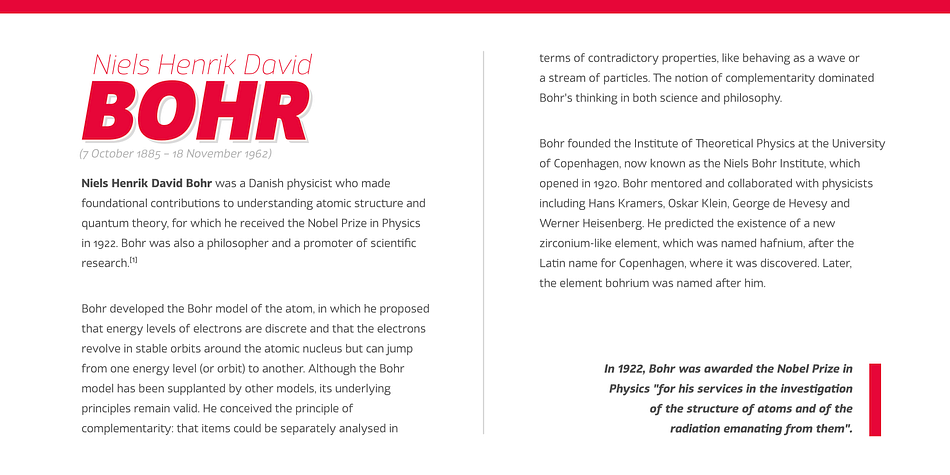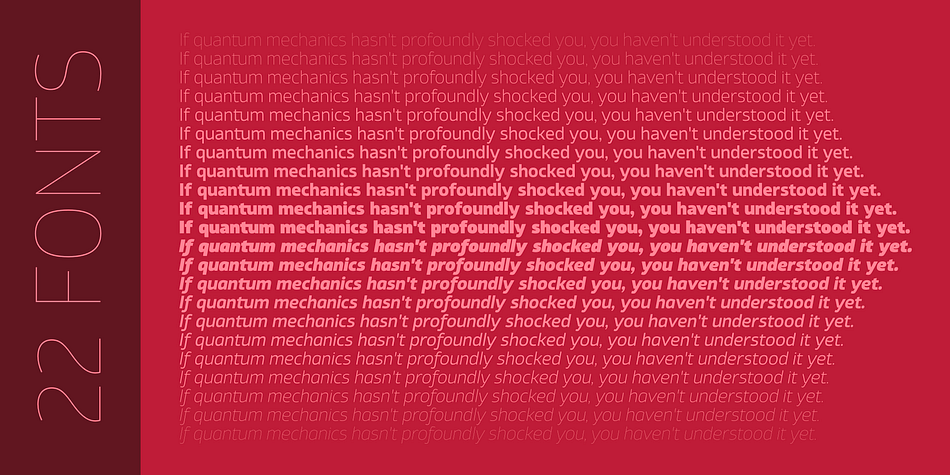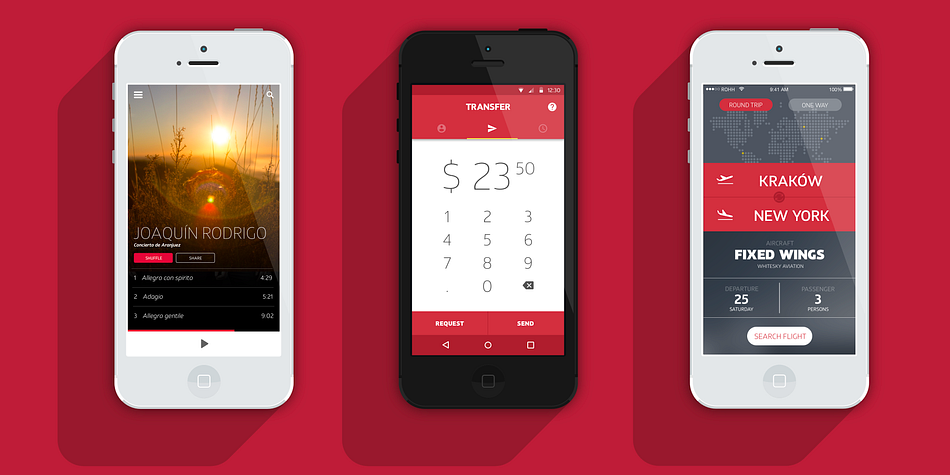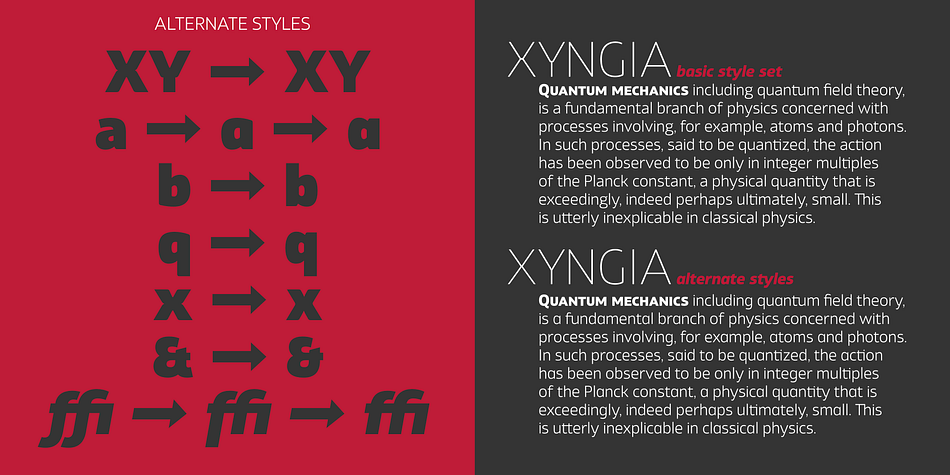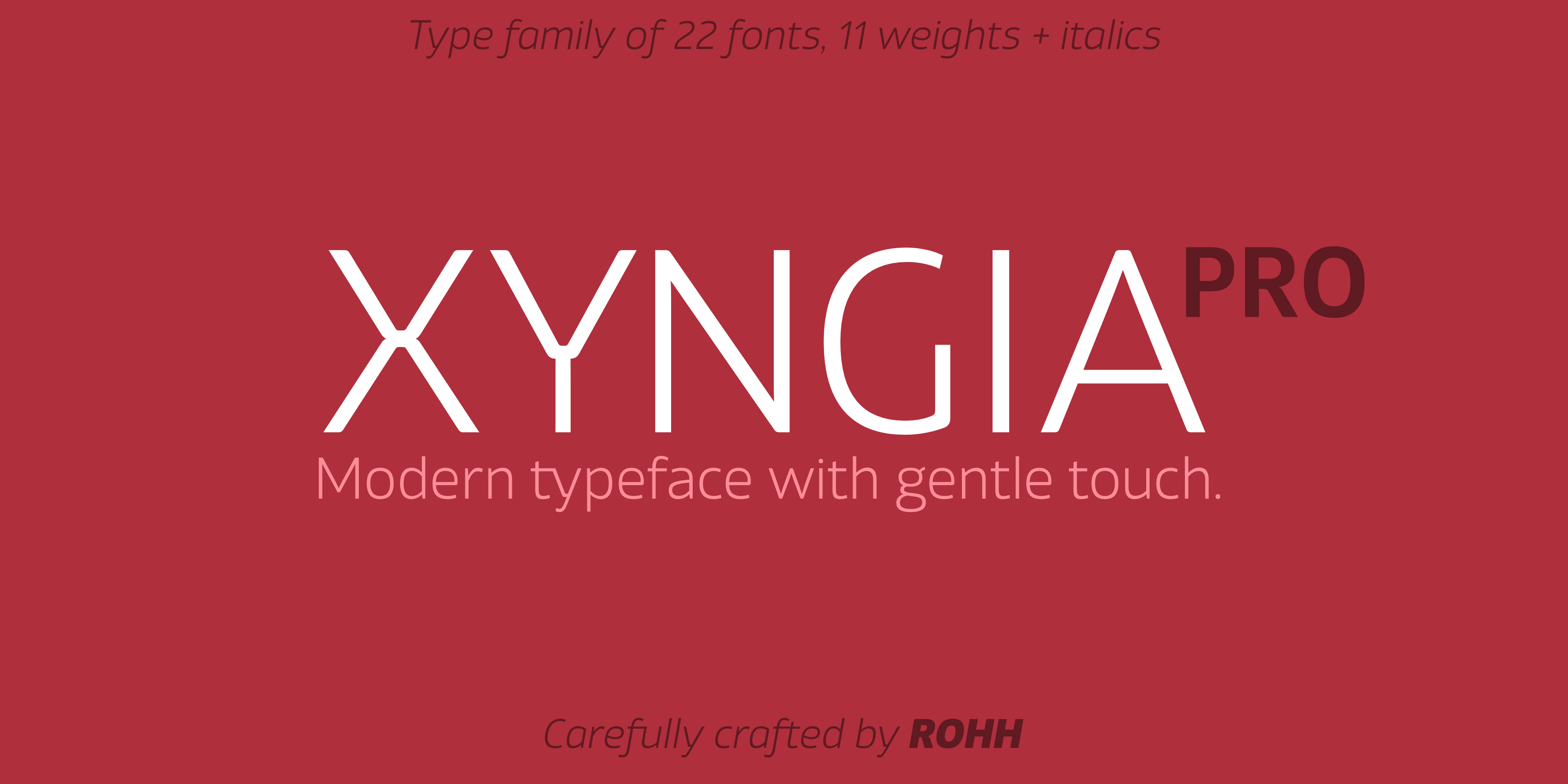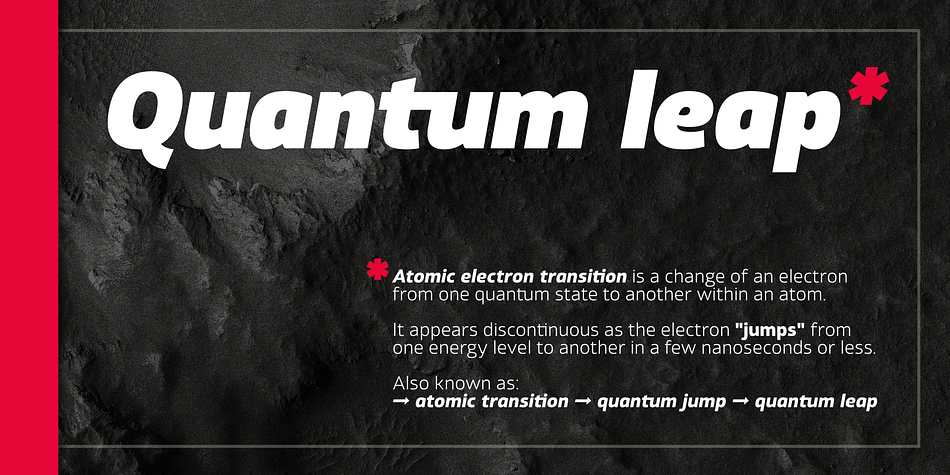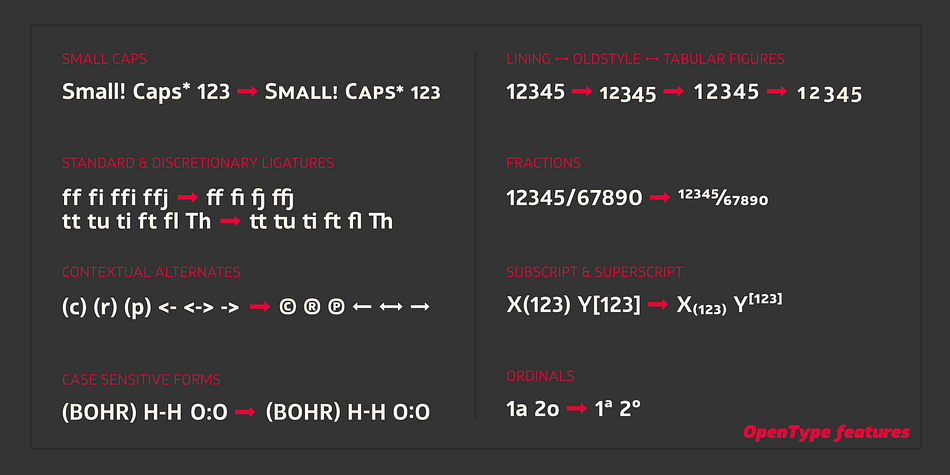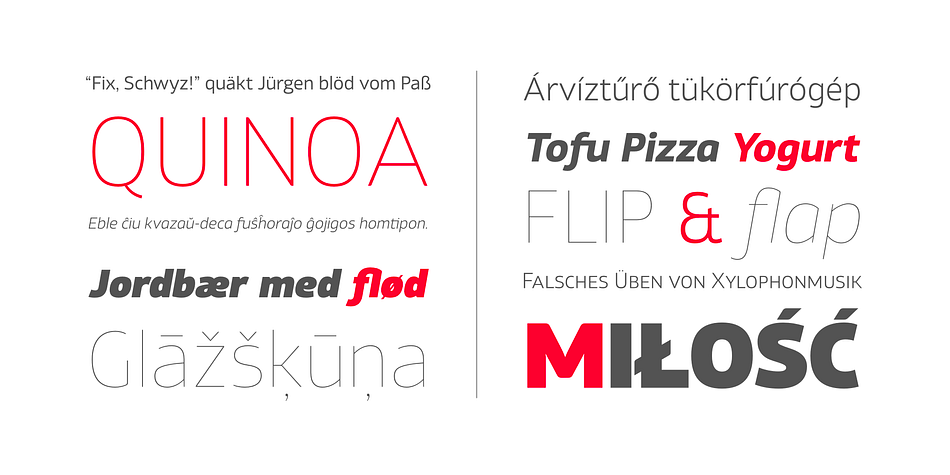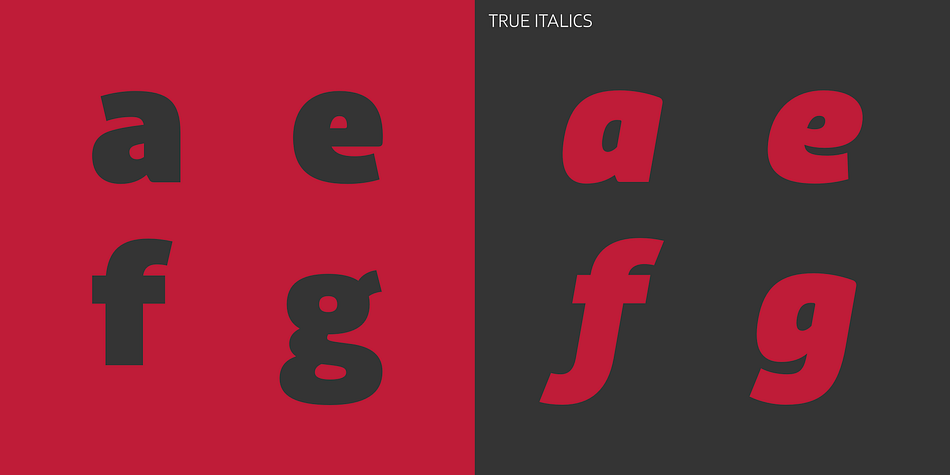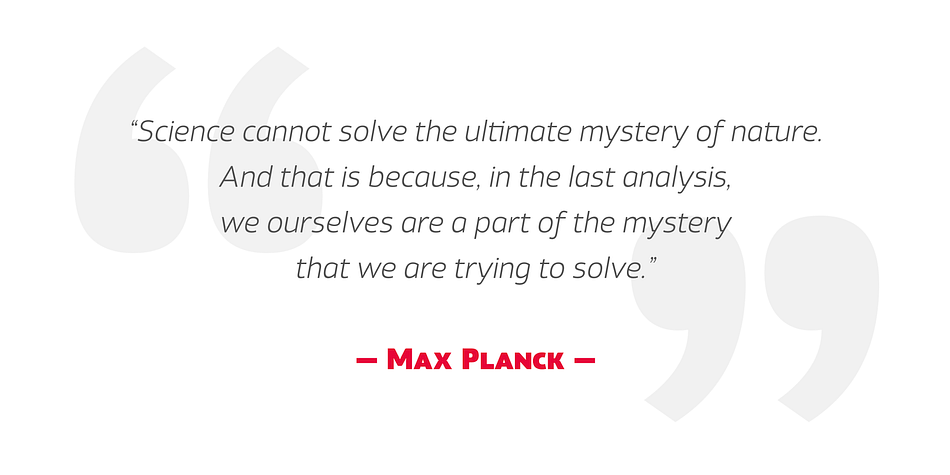
Designed by Roch Modrzejewski, Xyngia is a sans serif font family. This typeface has twenty-two styles and was published by ROHH.
Xyngia is a professional modern sans serif typeface. Thanks to its excellent legibility it is a great choice both for on-screen use as well as print purposes.
Xyngia is designed for use in long and short paragraphs of text, headlines and user interfaces. Its design nuances gives it distinctive character making it an interesting option for brand identification and logo design.
Xyngia consists of 22 fonts - 11 weights and their corresponding italics. It has extended language support (over 1000 glyphs) and true italics, as well as broad number of OpenType features, such as small caps, case sensitive forms, standard and discretionary ligatures, stylistic sets, contextual alternates, lining, oldstyle, tabular and small cap figures, slashed zero, fractions, superscript and subscript, ordinals, currencies and symbols.
Foundry | ROHH |
Designer | Roch Modrzejewski |